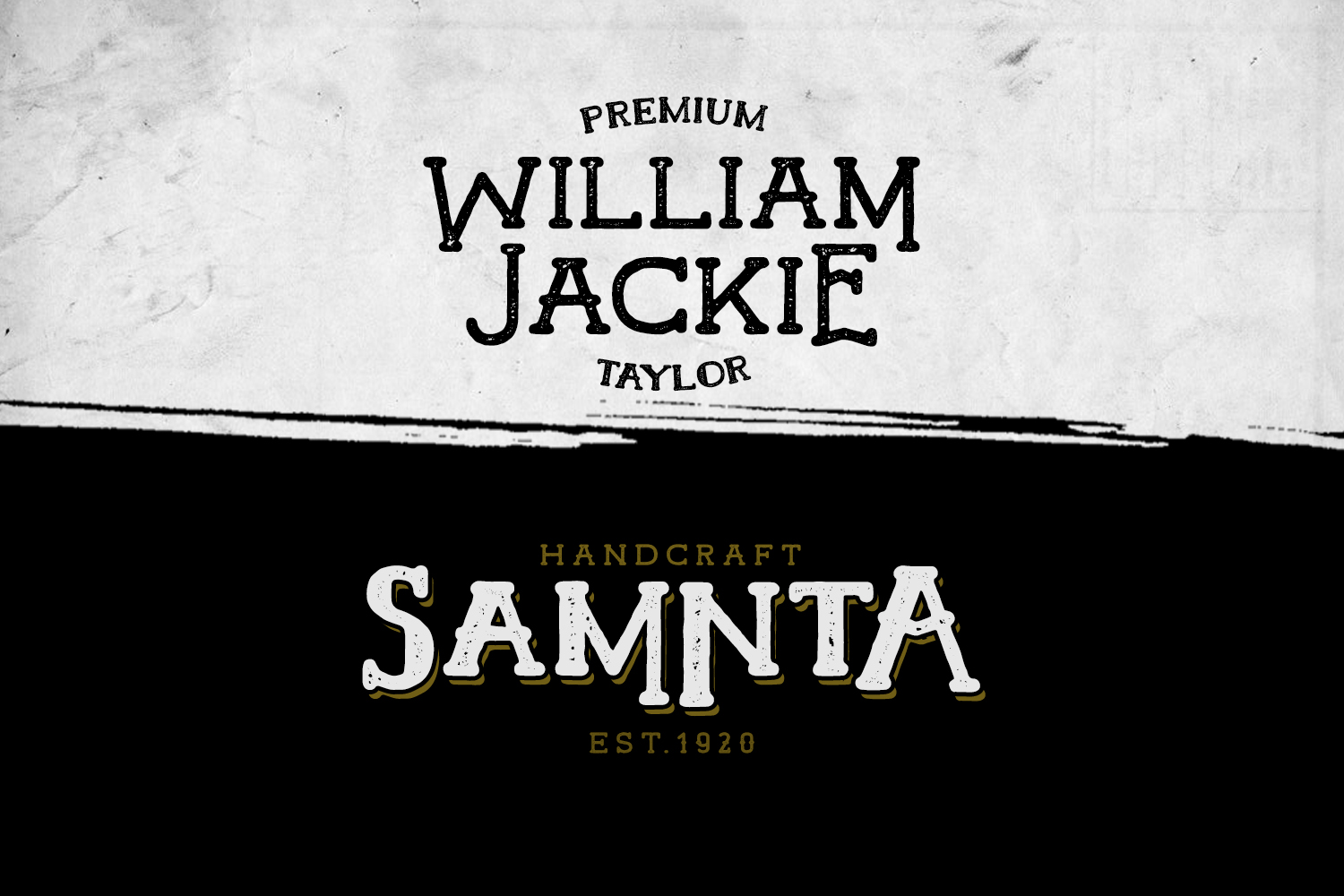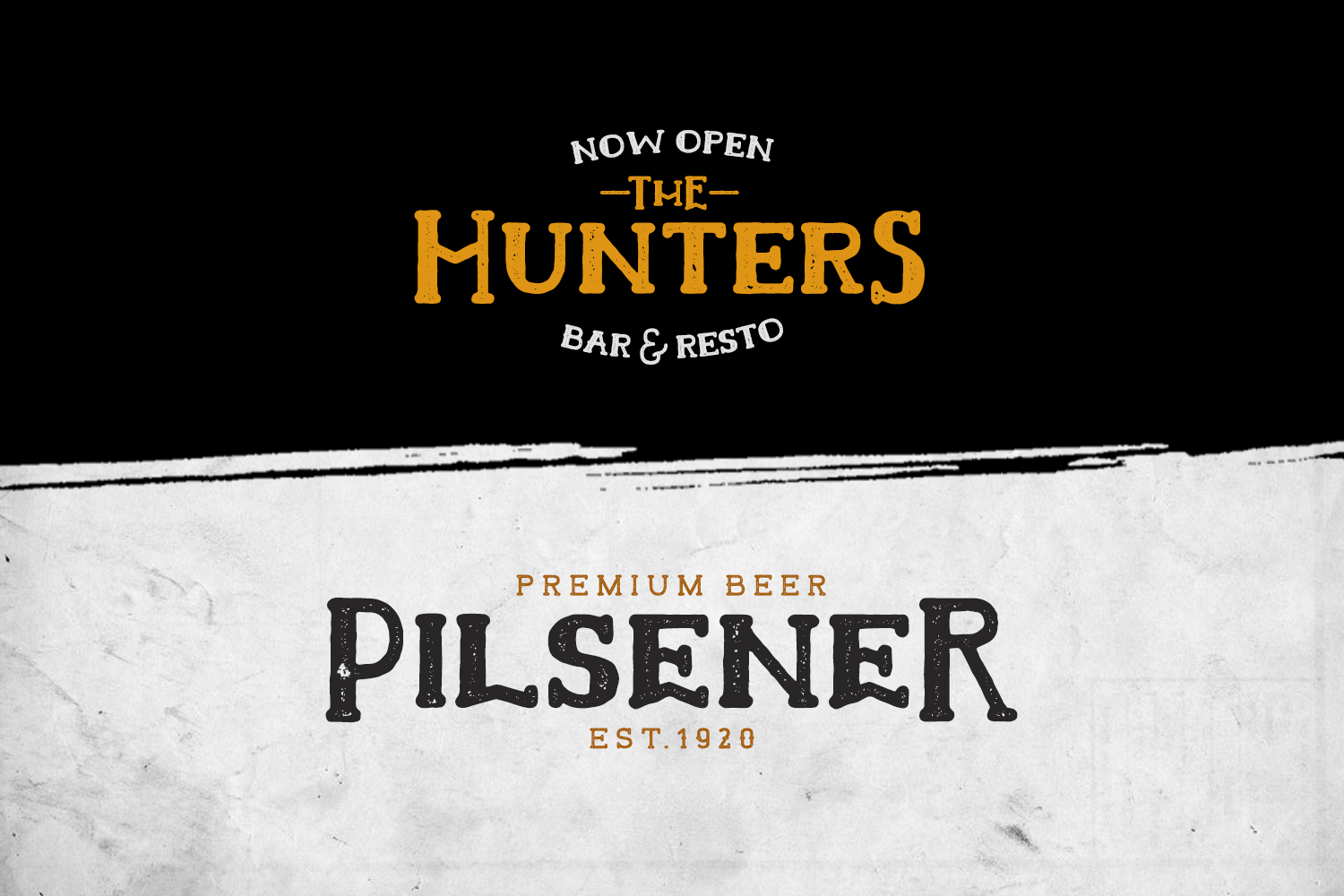
Hamer Typeface
Introduce Hamer is new old school typeface with vintage look style! Hamer is available 2 different stylistic Hamer perfect for poster design, book covers, merchandise, fashion campaigns, newsletters, branding, advertising, magazines, greeting cards, album covers, and quote designs and more.